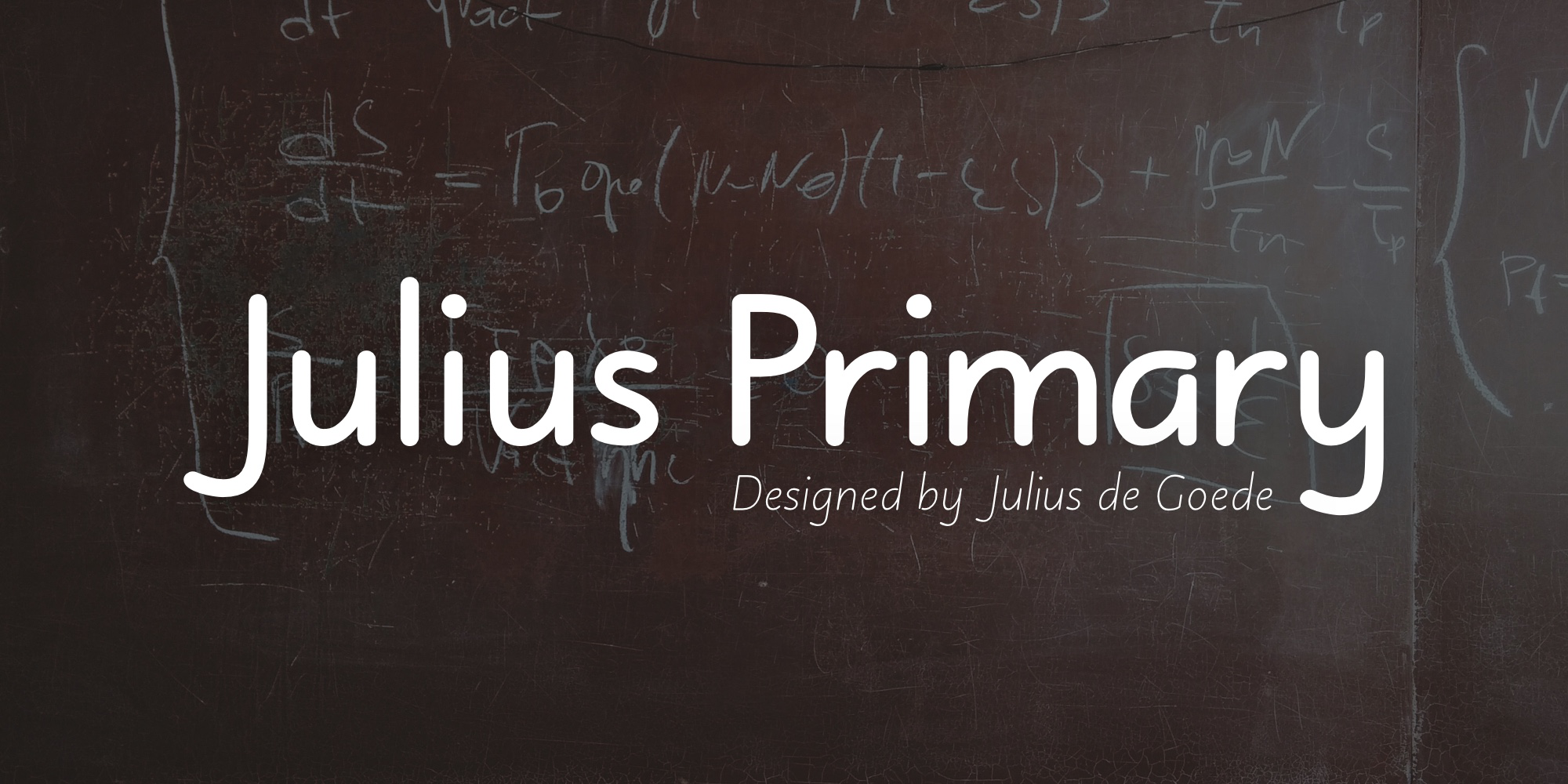
Elevate your typography with Julius Primary Font Free Download, a sleek and elegant display font designed for projects that require clarity, refinement, and a subtle classical touch. With its tall letterforms and minimalist lines, Julius Primary is perfect for headlines, branding, editorial layouts, and luxury packaging.
The font’s sharp precision and clean spacing give your designs a modern yet timeless appeal. Whether you’re creating logos, wedding invitations, product labels, or website headers, Julius Primary Font adds a high-end, artistic feel that draws attention without overwhelming the viewer.